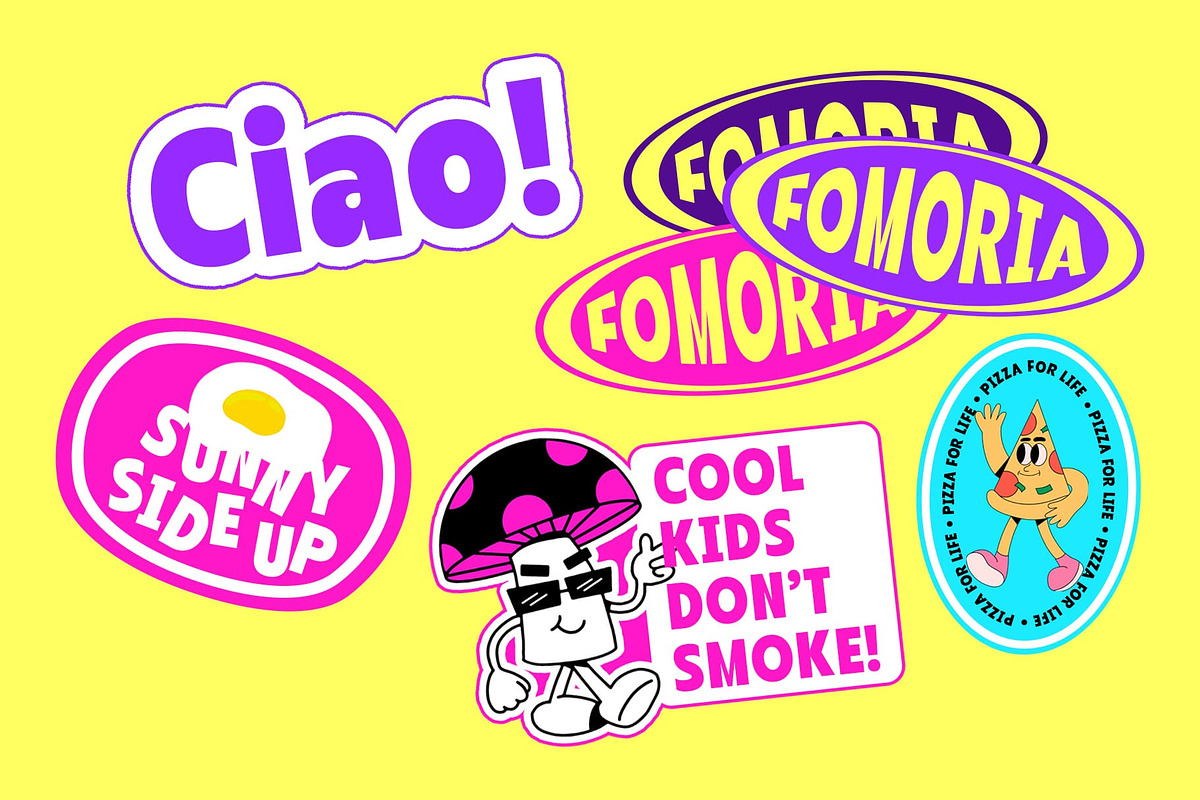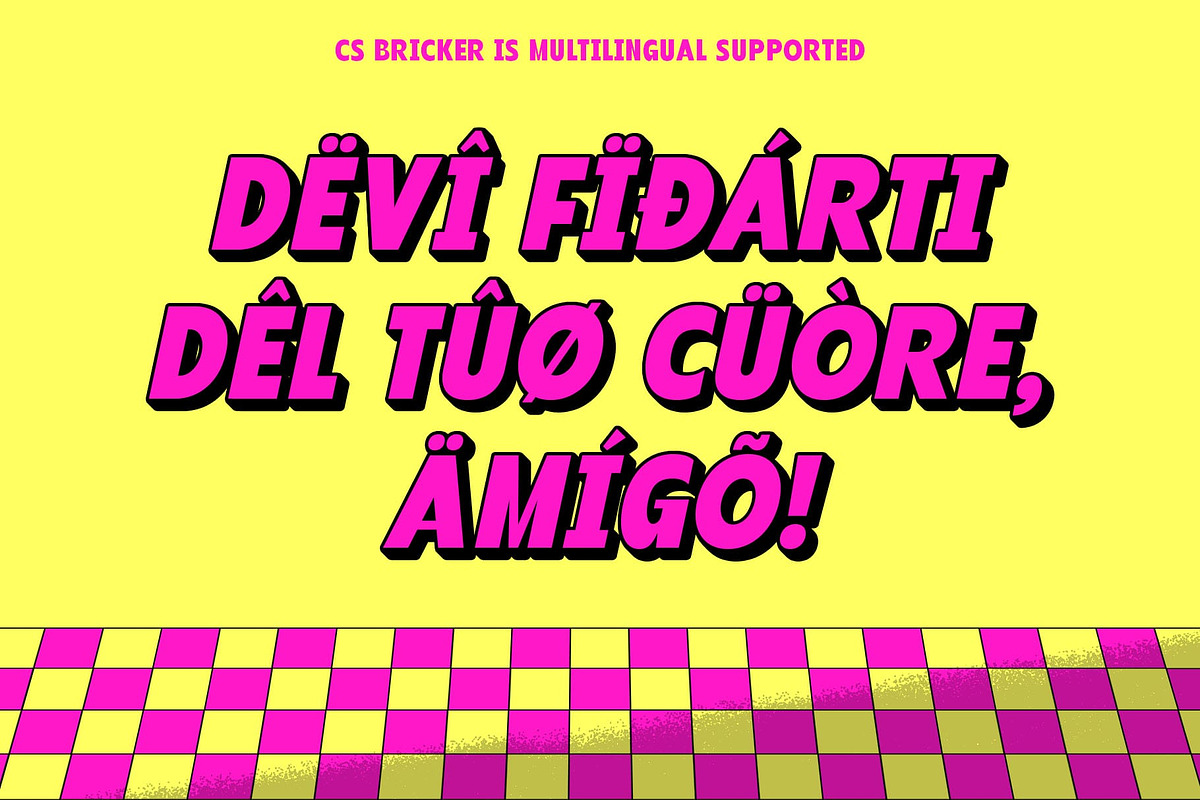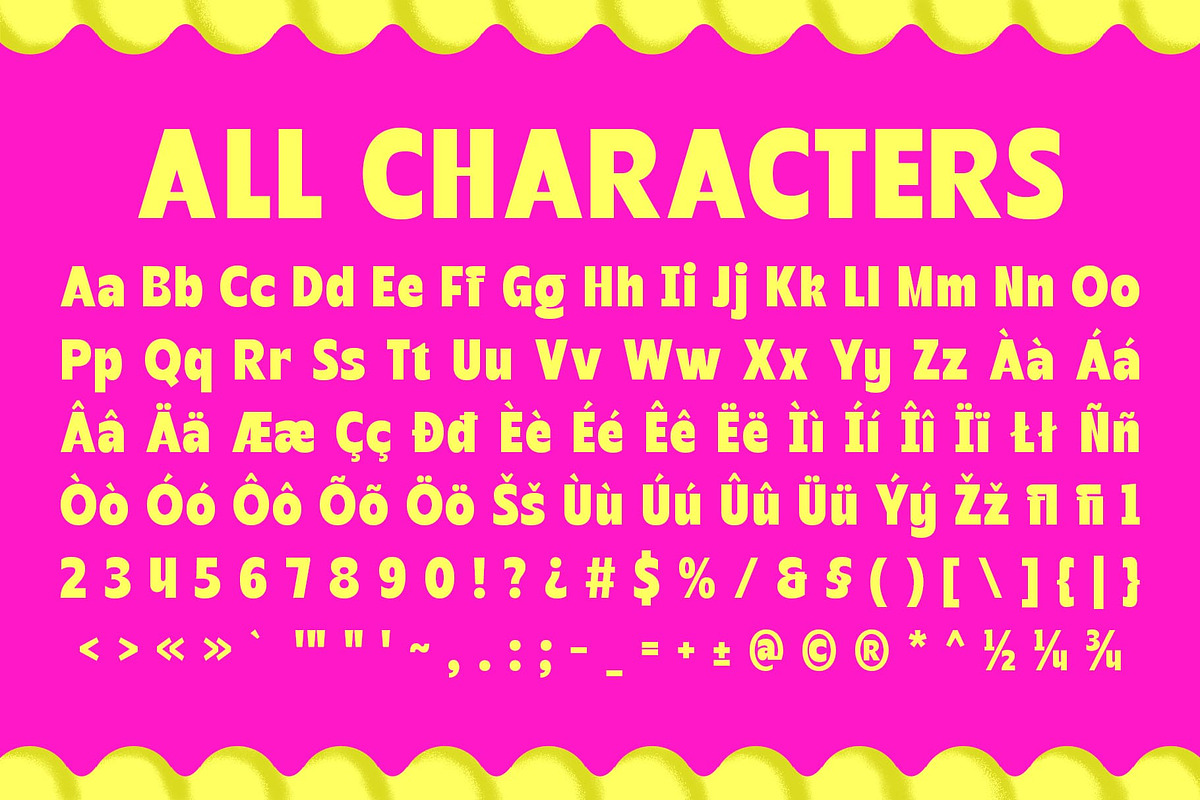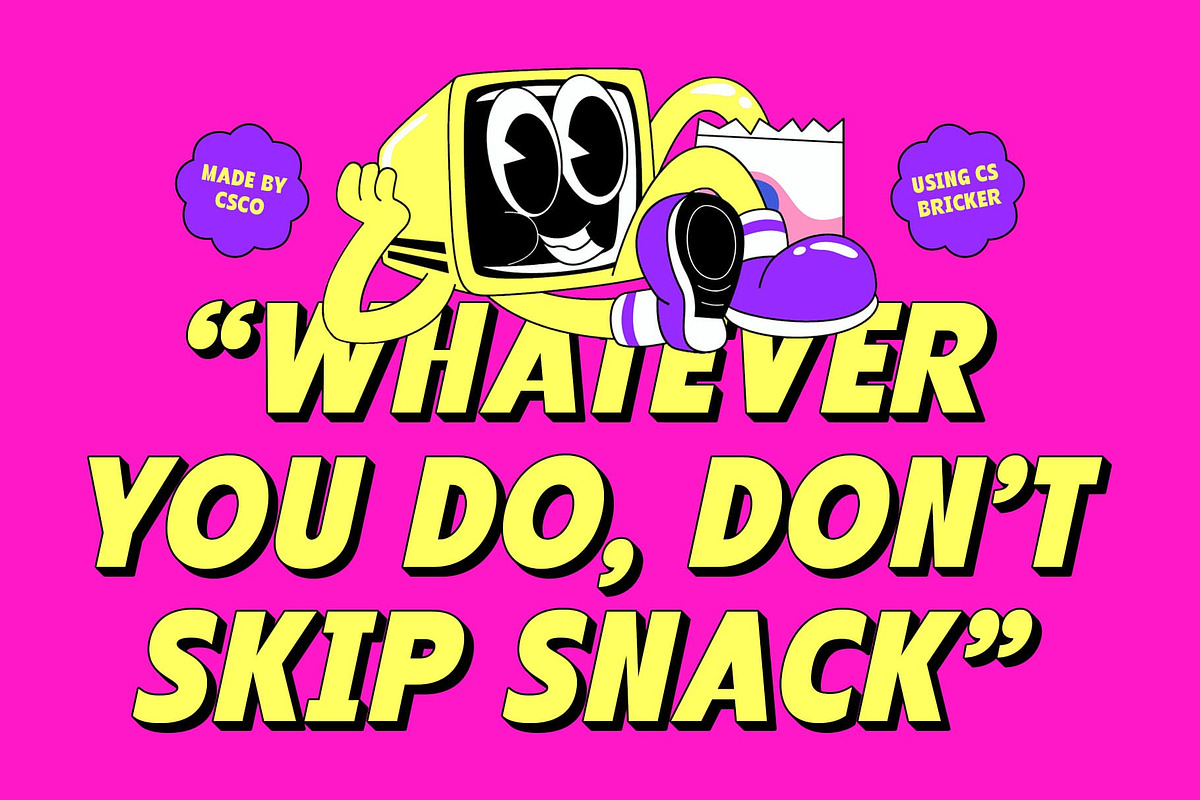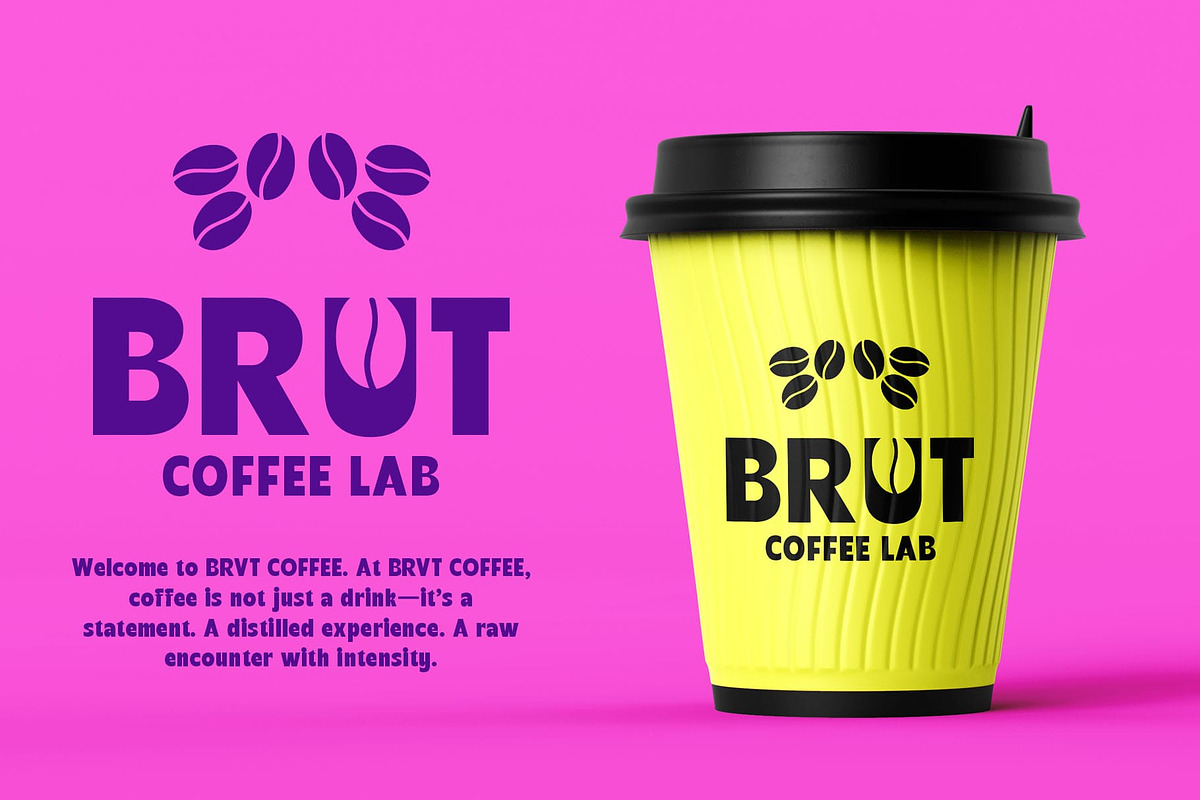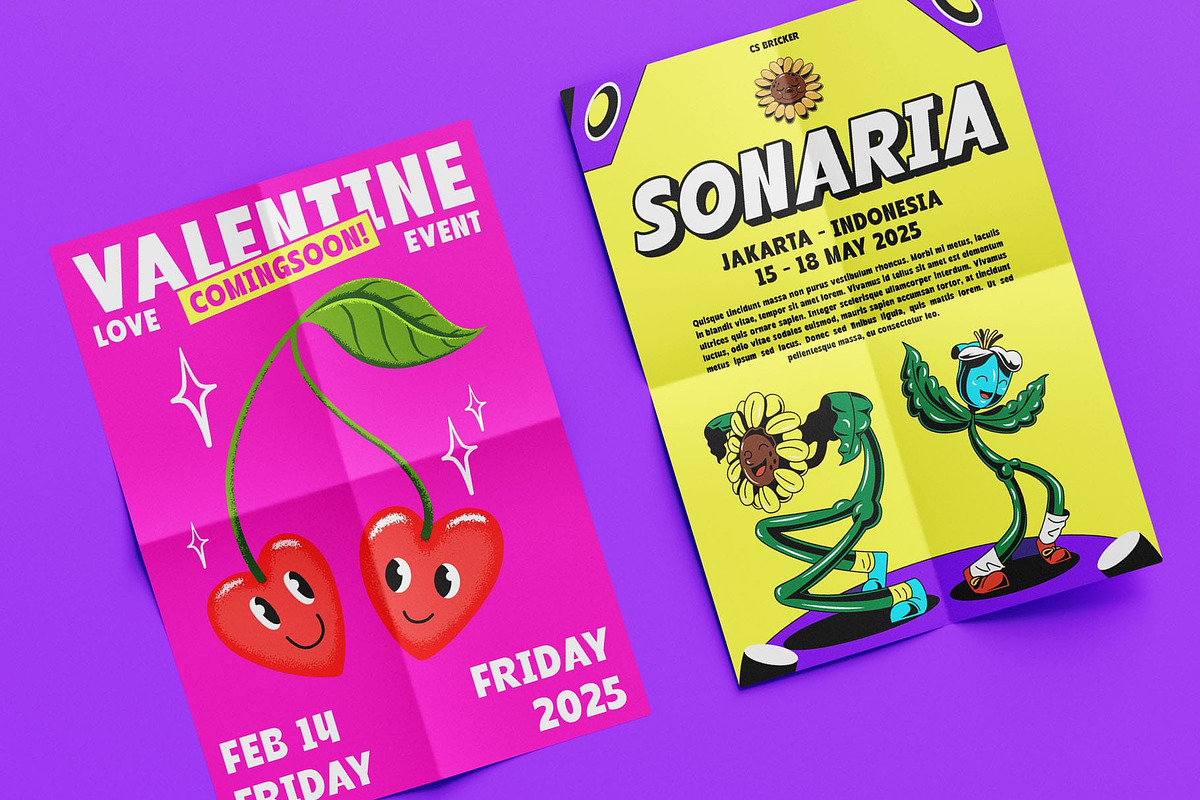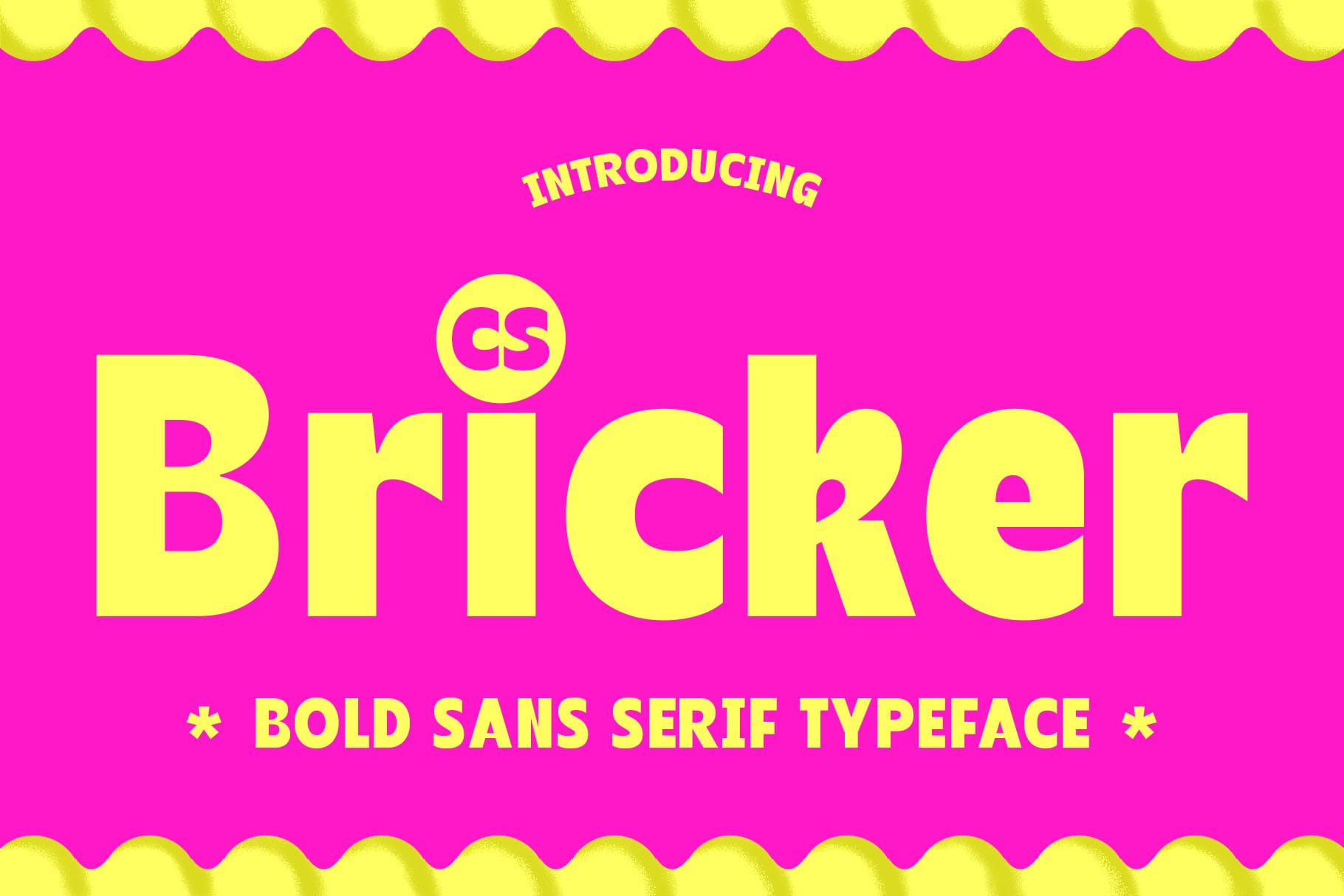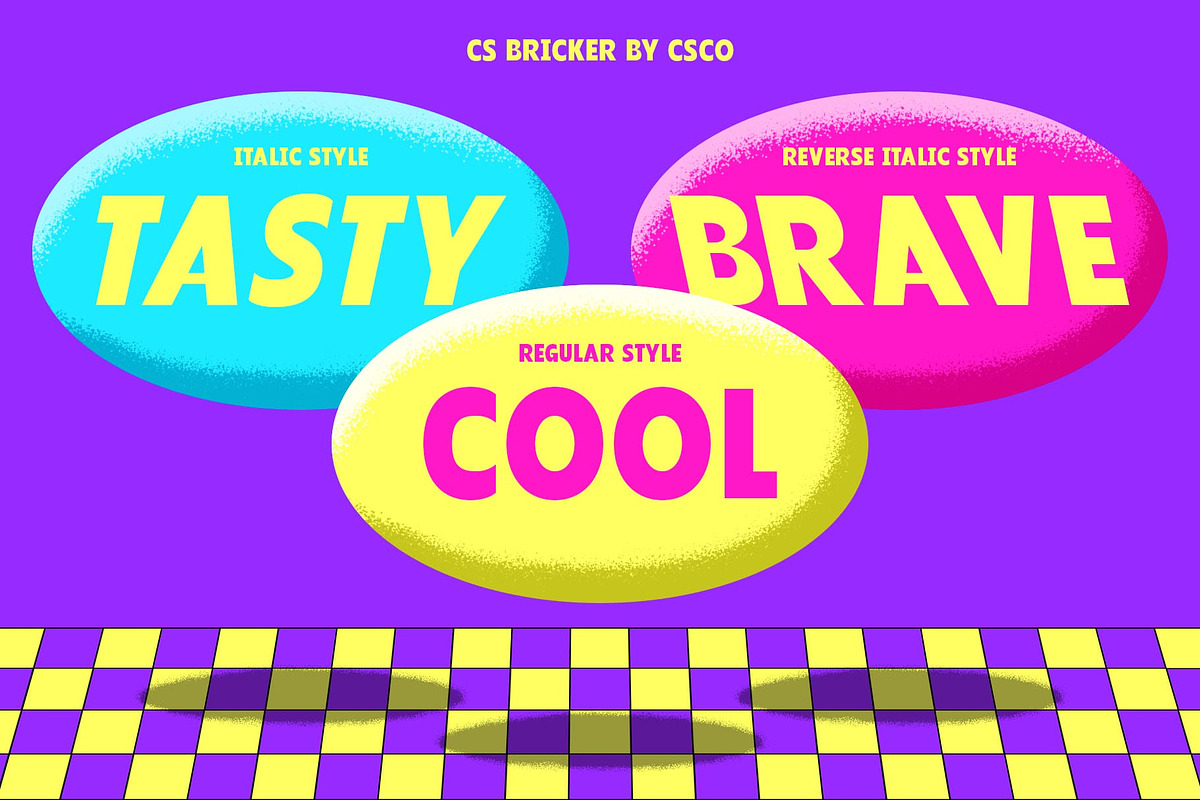
CS Bricker – Bold Font
CS Bricker – Bold Font: Futuristic, Funky, and Y2K-Inspired
A Bold Sans-Serif with a Y2K Aesthetic CS Bricker is a modern sans-serif font with a bold, funky, and futuristic edge, inspired by the vibrant aesthetics of the Y2K era. Its strong letterforms, dynamic curves, and tech-infused details capture the digital optimism of the early 2000s. With a perfect fusion of retro-futuristic energy and contemporary style, this font is designed for projects that demand impact and personality.
Retro-Futuristic Design with a Digital Edge Featuring rounded shapes, striking proportions, and sleek styling, CS Bricker reflects the cyber-tech, metallic, and digital trends that defined Y2K design. Its unique structure makes it an excellent fit for chrome-text effects, neon-lit visuals, glitch art, and high-energy compositions.
Perfect for Bold, Eye-Catching Designs Designed for high-impact and trendy visuals, CS Bricker is perfect for modern branding, streetwear labels, gaming graphics, music promotion, and futuristic packaging. Its playful yet edgy character ensures that every design stands out with confidence and energy.
A Statement Typeface for the Modern Era More than just a font, CS Bricker is a symbol of creativity and bold self-expression. It effortlessly blends Y2K nostalgia with modern digital trends, making it a go-to typeface for fashion, tech branding, music visuals, and experimental art projects. If you’re looking for a font that embodies both retro-futurism and contemporary innovation, CS Bricker is the ultimate choice.
- CS Bricker Regular
- CS Bricker Italic
- CS Bricker Reverse Italic